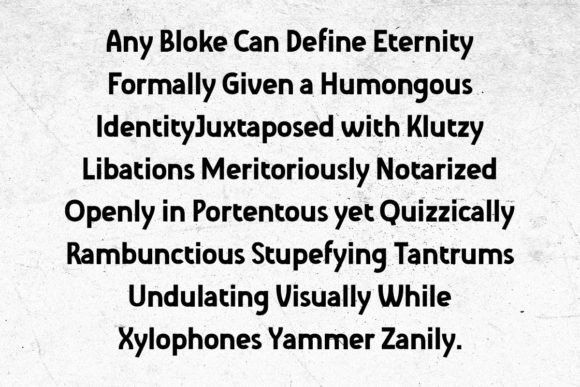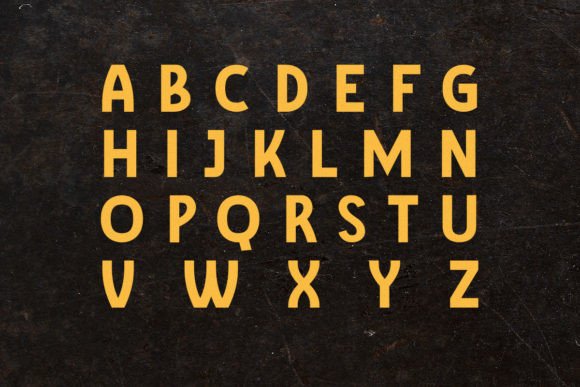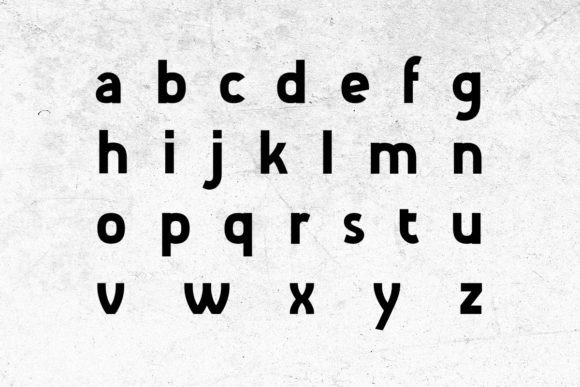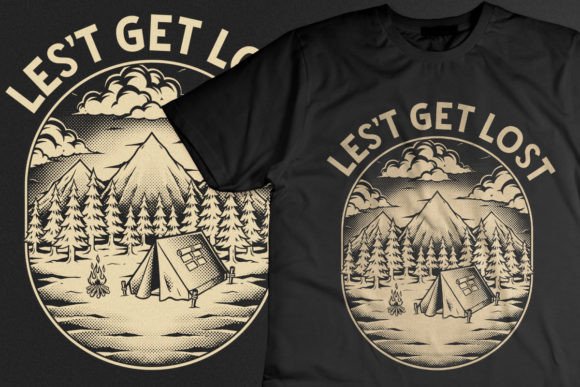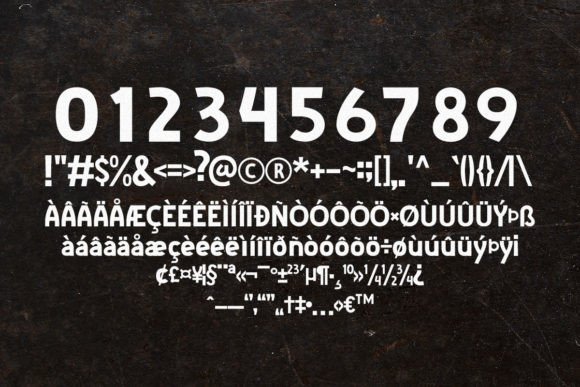
Introducing Geabolt Font: The Perfect Blend of Classic and Modern
In the world of typography, fonts play a crucial role in conveying the tone and aesthetic of a design. For designers and crafters looking for a typeface that exudes a sense of industrial masculinity with a touch of classic vintage charm, Geabolt Font is an excellent choice. This versatile font is designed to meet your design needs, whether you’re working on a logo, product label, poster, or any other creative project.
What Makes Geabolt Font Stand Out?
Geabolt Font boasts a unique industrial style with a masculine edge, making it perfect for designs that require a strong and rugged look. Despite its bold and sturdy appearance, Geabolt still manages to convey a sense of classic elegance, allowing it to seamlessly blend into both modern and vintage-themed designs. This versatility makes Geabolt an invaluable asset for designers who aim to create visually striking and memorable pieces.
Key Features of Geabolt Font
- Industrial Typeface with a Masculine Style: Geabolt’s design is characterized by its robust and solid appearance, making it ideal for projects that demand a strong visual impact.
- Classic, Vintage Touch: Despite its industrial nature, Geabolt incorporates elements of classic typography, providing a sophisticated and timeless look.
- Modern Appeal: The font’s clean lines and well-balanced structure ensure it remains modern and relevant, suitable for a wide range of design applications.
- PUA Encoded: Geabolt Font is PUA (Private Use Area) encoded, which means it offers easy access to all glyphs and swashes. This feature allows designers to explore a broader creative range without the hassle of complicated font management.
Applications of Geabolt Font
Geabolt’s adaptability makes it suitable for various design projects, including:
- Logo Design: Create memorable and impactful logos that stand out with Geabolt’s strong and distinctive style.
- Product Labels: Enhance your product labels with a professional and rugged look that captures attention.
- Poster Design: Use Geabolt to create bold and eye-catching posters for events, promotions, or informational purposes.
- Branding and Packaging: Establish a consistent brand image with Geabolt’s unique and recognizable typography.
Why Choose Geabolt Font?
In a sea of typefaces, Geabolt Font stands out for its unique blend of industrial ruggedness and classic sophistication. Here are a few reasons why designers and crafters should consider Geabolt for their projects:
- Time-Saving: With its PUA encoding, Geabolt allows for quick and easy access to a wide range of glyphs and swashes, saving you time and effort in the design process.
- Versatility: Whether you’re working on a modern digital project or a vintage-inspired print design, Geabolt’s versatile style ensures it will fit right in.
Geabolt Font is a powerful tool for designers and crafters looking to add an industrial yet classic touch to their work. Its unique blend of masculinity and elegance, combined with its practical features like PUA encoding, makes it an excellent choice for a wide range of design applications. Whether you’re creating logos, product labels, posters, or more, Geabolt Font is sure to enhance your designs and help you achieve professional, visually appealing results.